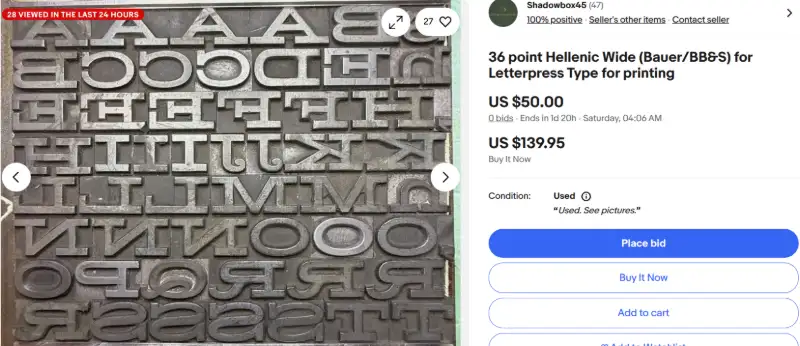
36 point Hellenic Wide (Bauer/BB&S) for Letterpress Type for printing*
Seller's description:
The pinmark states this face was cast by BB&S, but all the research I did stated it was cast by Bauer.
* Mac McGrew, "American Typefaces of the Twentieth Century", Second Revised Edition, p. 251.
Such a unique face to have in any collection!
NOTE: Please be aware that this particular font is NOT complete. It is missing caps G and X, lower g, and :
NOTE: Harvested from the private collection of Dave Churchman, APA 308. You may have seen this font in the chaotic background of the letterpress documentary, "Pressing On".